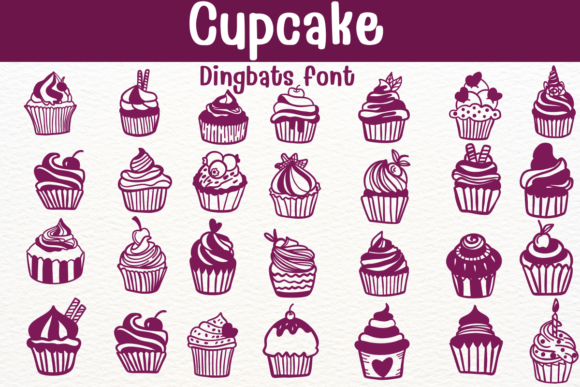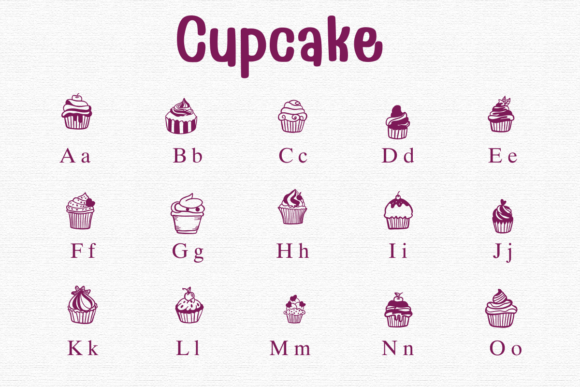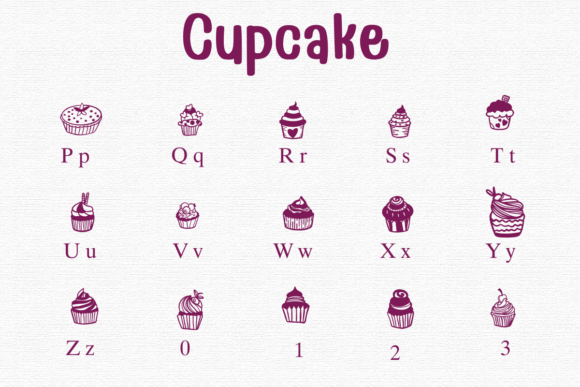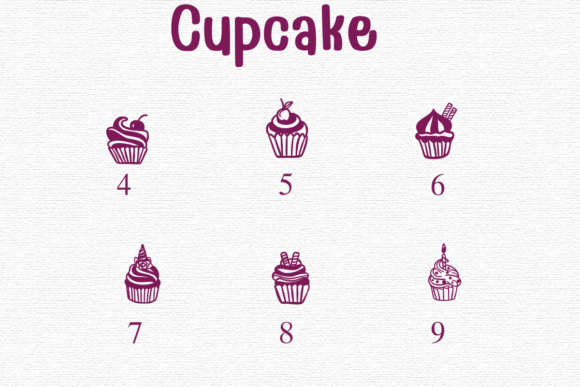
Cupcake Font
About the Cupcake Font
Make a bold statement with Cupcake Font, a powerful and memorable font. Cupcake is a sweet and indulgent dingbats font filled with deliciously illustrated cupcakes in a range of decorative styles. Use it for bakery branding, birthday parties, sweet shop packaging, or any design that needs a sprinkle of charm.
Cupcake’s playful charm makes it ideal for branding projects targeting children or young adults, bakery signage, and celebratory invitations. It excels in short, impactful uses such as logos, headlines, and short social media posts. However, its highly decorative nature makes it unsuitable for body text or UI elements where readability is paramount.
Pairing Cupcake with a clean sans-serif like Open Sans for body text provides a strong contrast, balancing the font’s whimsicality with clear, legible information. For a more sophisticated feel, consider pairing it with a delicate script font like Great Vibes for added elegance in invitations or branding materials.
Cupcake’s overall personality is undeniably cheerful and friendly, conveying a sense of fun and approachability. Avoid using it for projects requiring a serious or formal tone.
Cupcake Font Usage Examples
Cupcake Font Example